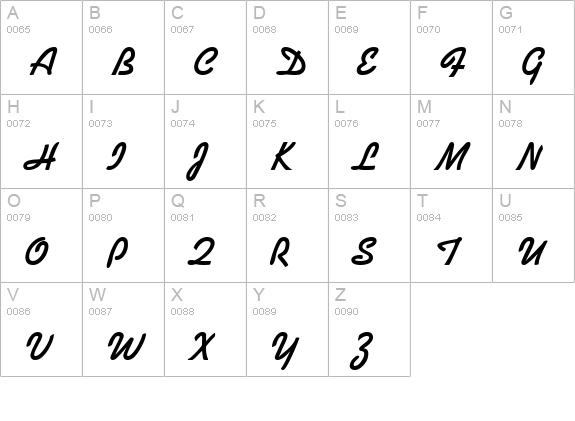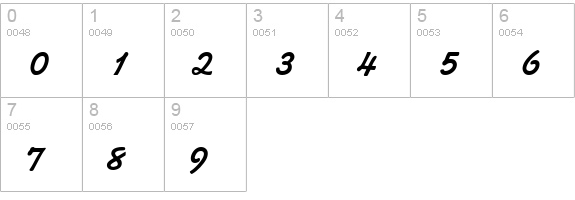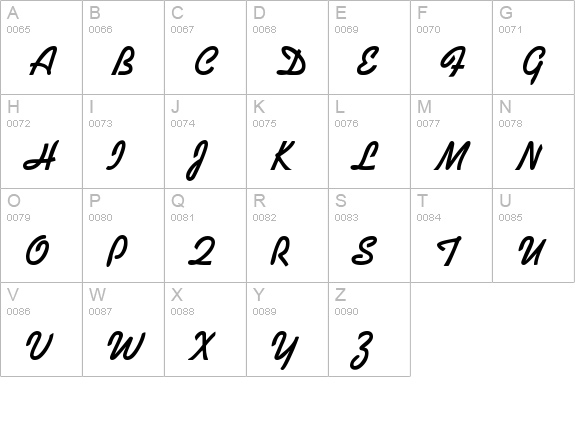
TR Koala Bold Font Details
TR Koala Bold is a strong, high-contrast variant in the TR typeface family \xE2\x80\x94 well suited to headlines, attention-grabbing titles, and strong calls-to-action.
TR Koala Bold is a striking and versatile font that exudes confidence and modernity. With its bold and eye-catching design, this typeface is perfect for creating impactful headlines, posters, logos, and more. The clean lines and strong presence of TR Koala Bold make it a standout choice for any design project that requires a bold statement. What's even better is that TR Koala Bold is available for free download at FontsMarket.com. This means you can easily access and use this dynamic font in your projects without any cost. Whether you're a designer looking to add a bold touch to your work or a content creator in need of a standout font, TR Koala Bold is the perfect choice. Download it today and elevate your designs with this impressive and freely available typeface.